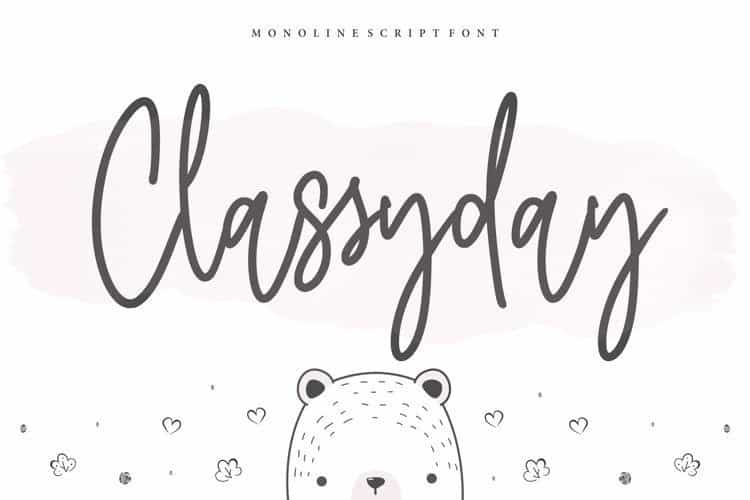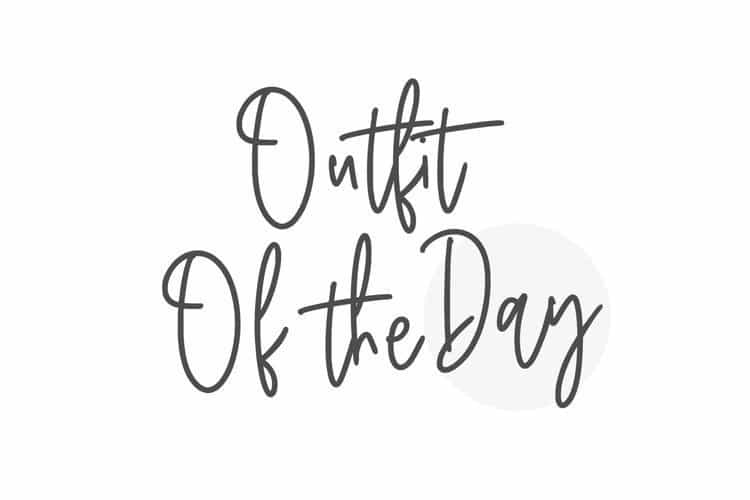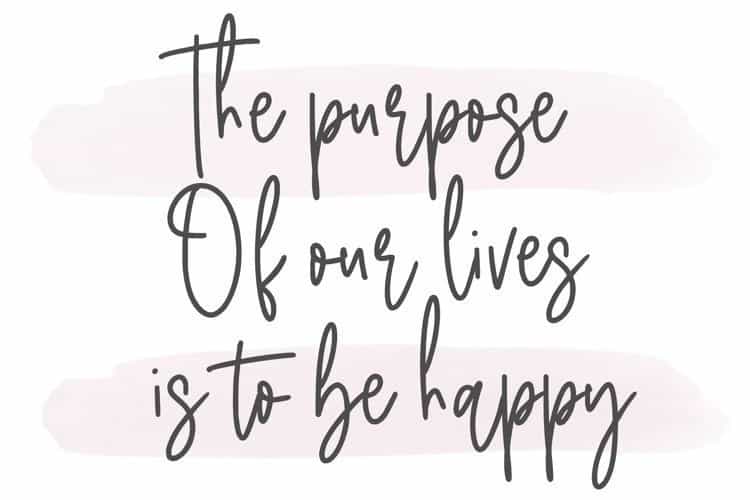
Classyday is a script monoline font presented in one weight only. It has a foot-like stream of the vertical pen, gentle top right corner and the sideways movement which is exciting and easy to use. Classyday is good for product packaging, branding works, magazines, social networks, weddings and, of course, to put words on top of the background. This font includes TTF, Classyday also multilingual support; it means the font can display a large number of languages.